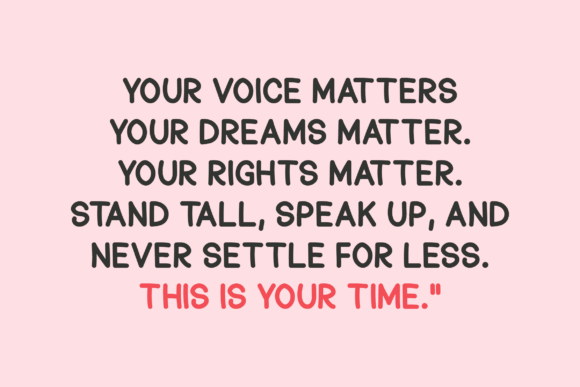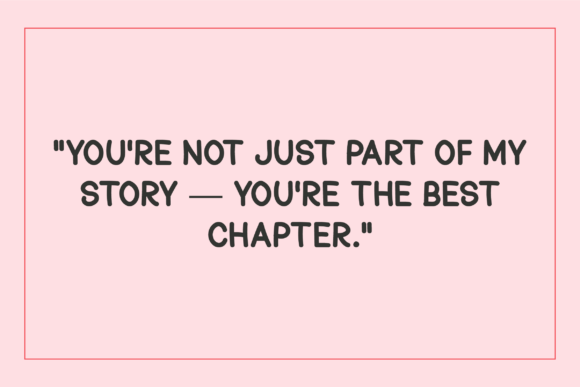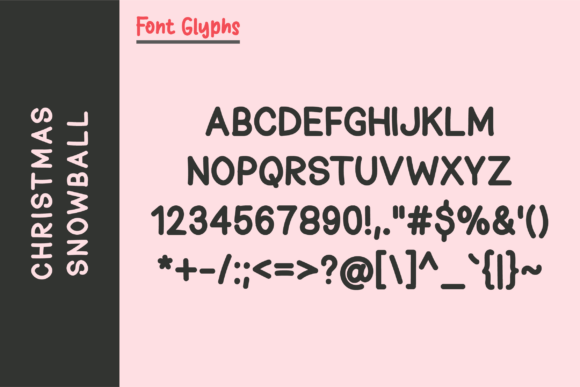
Introducing Christmas Snowball Font: The Perfect Blend of Bold and Charming
Are you looking for a font that can add a touch of warmth and authenticity to your designs? Look no further than Christmas Snowball Font, a handwritten font that combines a strong, bold presence with a charming, personal touch. In this article, we’ll explore the unique features of Christmas Snowball Font and how it can elevate your branding, packaging, social media, and print designs.
A Font that Stands Out from the Crowd
Christmas Snowball Font is a one-of-a-kind handwritten font that is sure to make an impact. Its bold and strong presence is perfect for designers and crafters who want to add a touch of personality to their designs. The font’s unique style is reminiscent of handwritten notes and letters, making it ideal for adding a personal touch to any design.
Perfect for Branding and Packaging
When it comes to branding and packaging, it’s essential to create a lasting impression. Christmas Snowball Font is the perfect choice for designers who want to add a touch of warmth and authenticity to their brand’s identity. The font’s bold and charming style is sure to grab attention and leave a lasting impression on customers. Whether you’re designing a logo, label, or packaging, Christmas Snowball Font is the perfect choice.
Elevate Your Social Media Designs
Social media is all about standing out from the crowd, and Christmas Snowball Font can help you do just that. The font’s unique style is perfect for creating eye-catching social media graphics, quotes, and posts. Whether you’re a blogger, influencer, or business owner, Christmas Snowball Font can help you create engaging and shareable content.
Add a Touch of Personality to Your Print Designs
Christmas Snowball Font is not just limited to digital designs. The font is also perfect for print designs, such as brochures, flyers, and posters. The font’s bold and charming style is sure to add a touch of personality to any print design, making it stand out from the crowd.
Why Choose Christmas Snowball Font?
So, why choose Christmas Snowball Font over other fonts? Here are just a few reasons:
• Unique Style: Christmas Snowball Font has a unique and one-of-a-kind style that is sure to make an impact.
• Versatile: The font is versatile and can be used for a variety of designs, from branding and packaging to social media and print.
• Easy to Read: Despite its bold style, Christmas Snowball Font is easy to read, making it perfect for body text and headlines.
• Authentic: The font’s handwritten style adds a touch of authenticity and warmth to any design.
How to Use Christmas Snowball Font
Using Christmas Snowball Font is easy. Here are a few tips to get you started:
• Pair it with Other Fonts: Pair Christmas Snowball Font with other fonts to create a unique and eye-catching design.
• Experiment with Colors: Experiment with different colors to find the perfect combination that works with your design.
• Use it for Headlines: Use Christmas Snowball Font for headlines and titles to add a touch of personality to your design.
Christmas Snowball Font is a unique and versatile font that is perfect for designers and crafters who want to add a touch of warmth and authenticity to their designs. With its bold and charming style, it’s ideal for branding, packaging, social media, and print designs. Whether you’re a seasoned designer or just starting out, Christmas Snowball Font is a must-have font that is sure to make an impact.